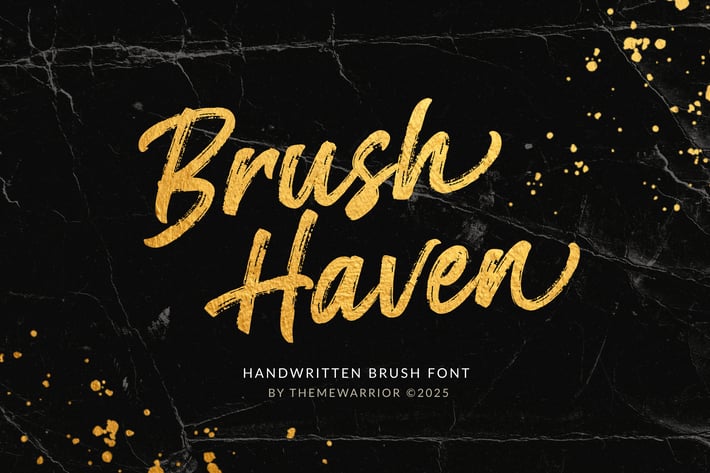
Brush Haven - Brush Font
Brush Haven is a bold and expressive brush font that brings a handcrafted feel to your designs. With smooth strokes and an artistic vibe, it’s perfect for logos, posters, and social media. Brush Haven also includes alternates and ligatures, giving you endless creative options to make your text stand out.
- Uppercase & lowercase
- Regular & Italic fonts
- Numbers
- Punctuations
- Multilingual support